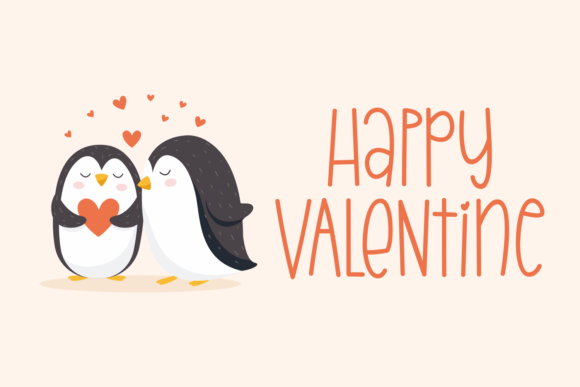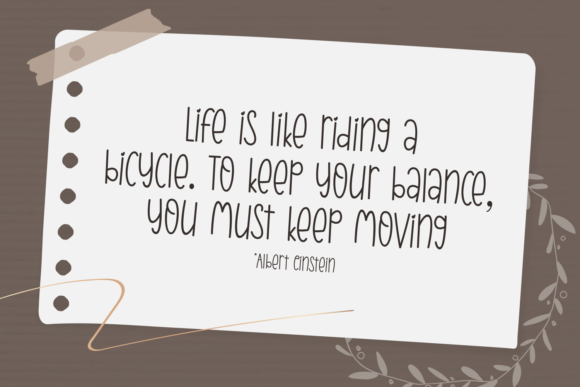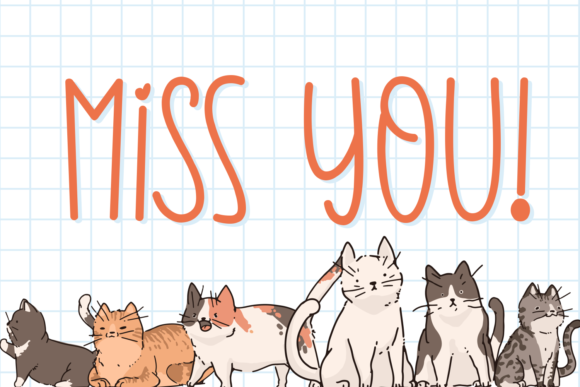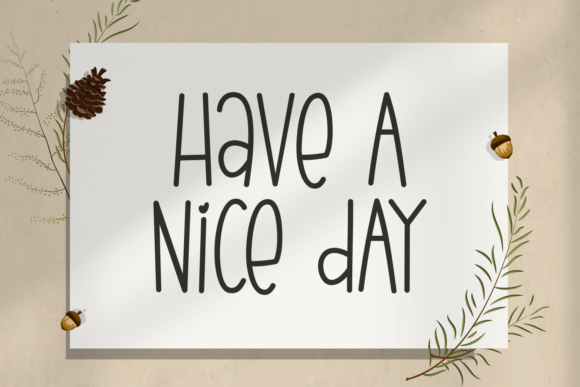
Dream Note Font: Elevate Your Designs with a Clean and Thin Lettered Display Font
Are you a designer or crafter looking for a unique and versatile font to elevate your creative projects? Look no further than the Dream Note font. This clean and thin lettered display font is perfect for a wide range of crafty ideas, from letterheads and titles to stationery. In this article, we’ll explore the features and benefits of the Dream Note font, and how it can help take your designs to the next level.
What is Dream Note Font?
Dream Note font is a modern and elegant display font that is characterized by its clean and thin lettering style. Designed to be highly legible and versatile, this font is perfect for a variety of design projects, including logos, titles, headings, and more. Its original look and feel make it an excellent choice for designers and crafters who want to add a touch of sophistication and elegance to their work.
Key Features of Dream Note Font
• Clean and Thin Lettering Style: The Dream Note font features a clean and thin lettering style that is both modern and elegant.
• Highly Legible: The font is designed to be highly legible, making it perfect for use in a variety of design projects, from titles and headings to body text.
• Versatile: The Dream Note font is highly versatile and can be used in a wide range of design projects, from logos and letterheads to stationery and more.
• Original Look and Feel: The font has an original look and feel that will appeal to a wide range of crafty ideas and design styles.
Benefits of Using Dream Note Font
• Elegant and Sophisticated: The Dream Note font adds an elegant and sophisticated touch to any design project, making it perfect for designers and crafters who want to create high-end designs.
• Improves Readability: The font’s clean and thin lettering style improves readability, making it easier for readers to quickly scan and understand your content.
• Increases Versatility: The Dream Note font is highly versatile and can be used in a wide range of design projects, from logos and letterheads to stationery and more.
• Unique and Original: The font has a unique and original look and feel that will help your designs stand out from the crowd.
How to Use Dream Note Font in Your Designs
• Logos and Branding: Use the Dream Note font to create elegant and sophisticated logos and branding materials.
• Letterheads and Stationery: Add a touch of elegance and sophistication to your letterheads and stationery with the Dream Note font.
• Titles and Headings: Use the font to create eye-catching titles and headings for your blog posts, articles, and other written content.
• Signage and Displays: The Dream Note font is perfect for use in signage and displays, where its clean and thin lettering style can be easily read from a distance.
In conclusion, the Dream Note font is a clean and thin lettered display font that is perfect for designers and crafters who want to add a touch of elegance and sophistication to their designs. With its highly legible and versatile design, this font is perfect for a wide range of crafty ideas, from letterheads and titles to stationery and more. Whether you’re looking to create elegant logos and branding materials, or eye-catching titles and headings, the Dream Note font is an excellent choice.